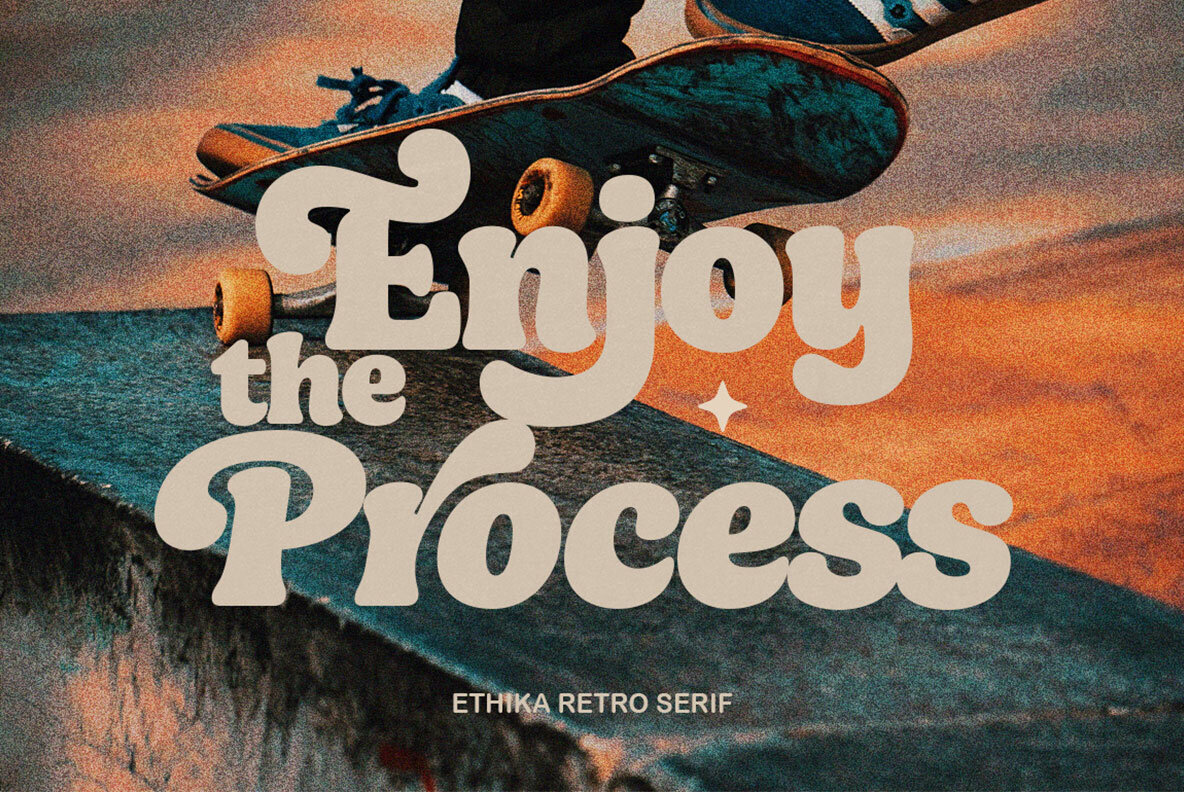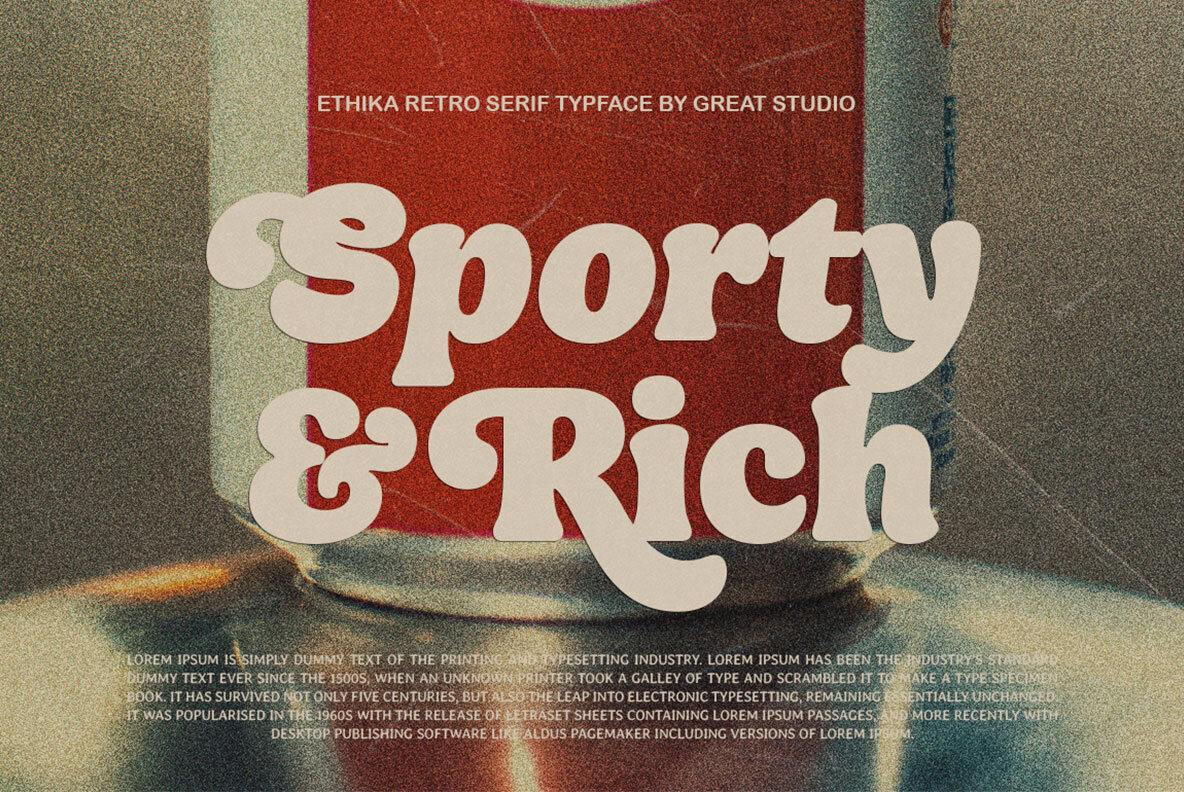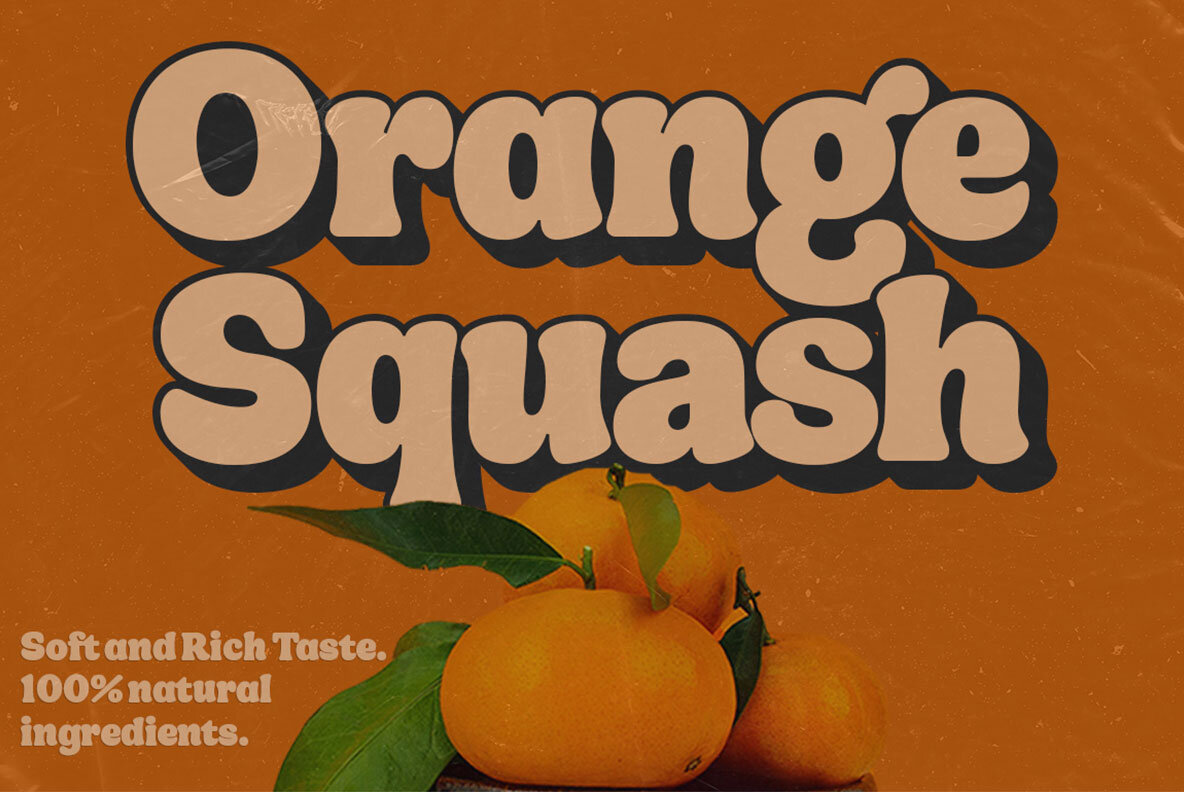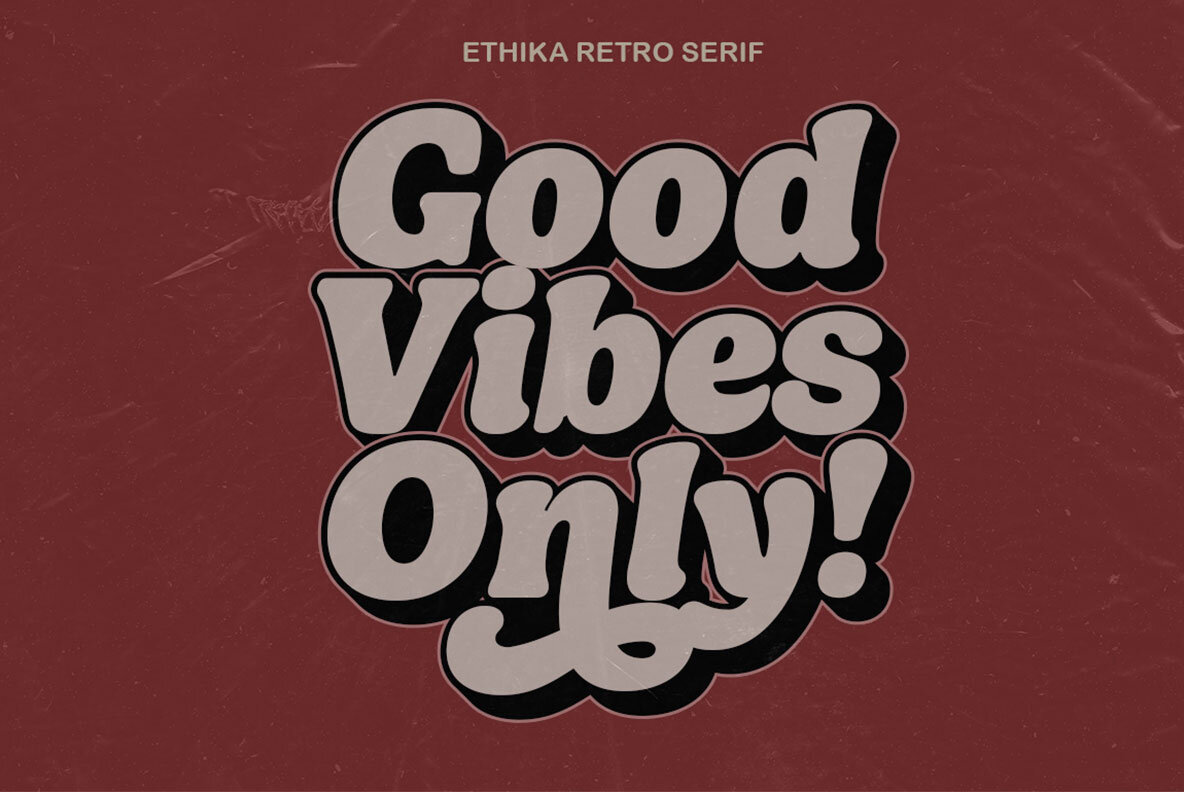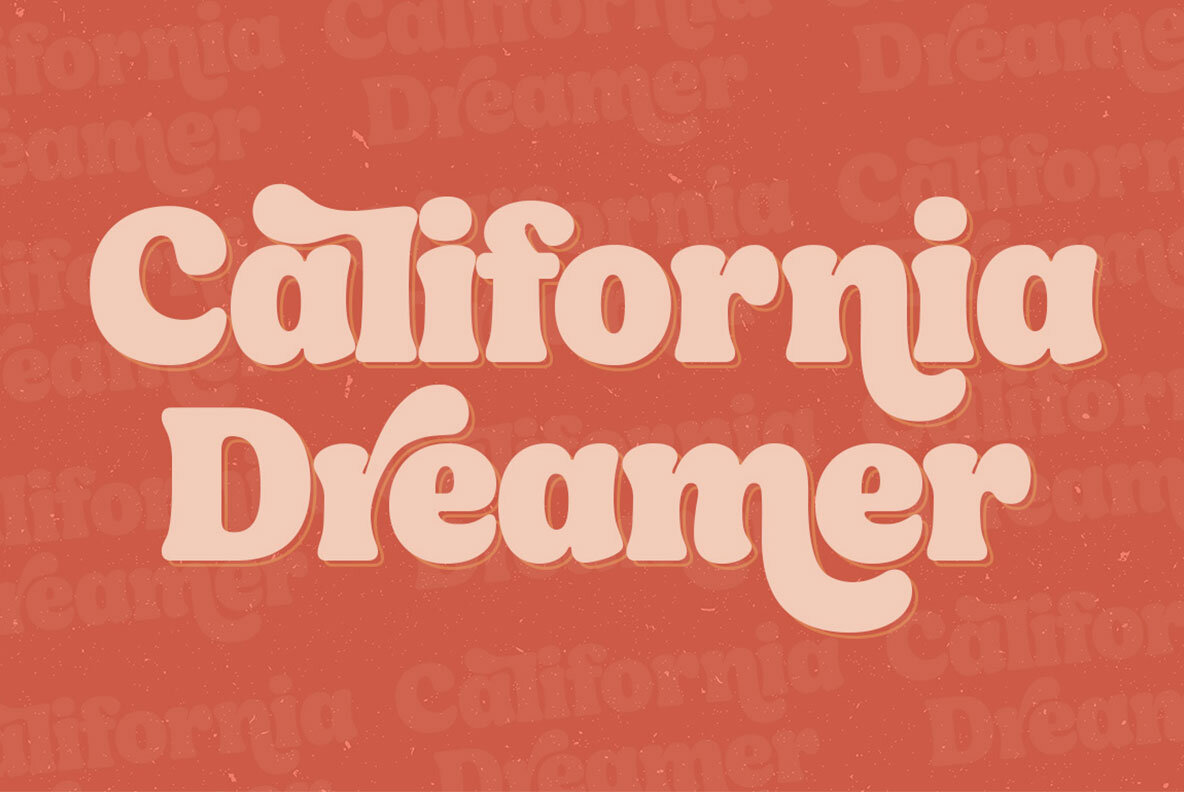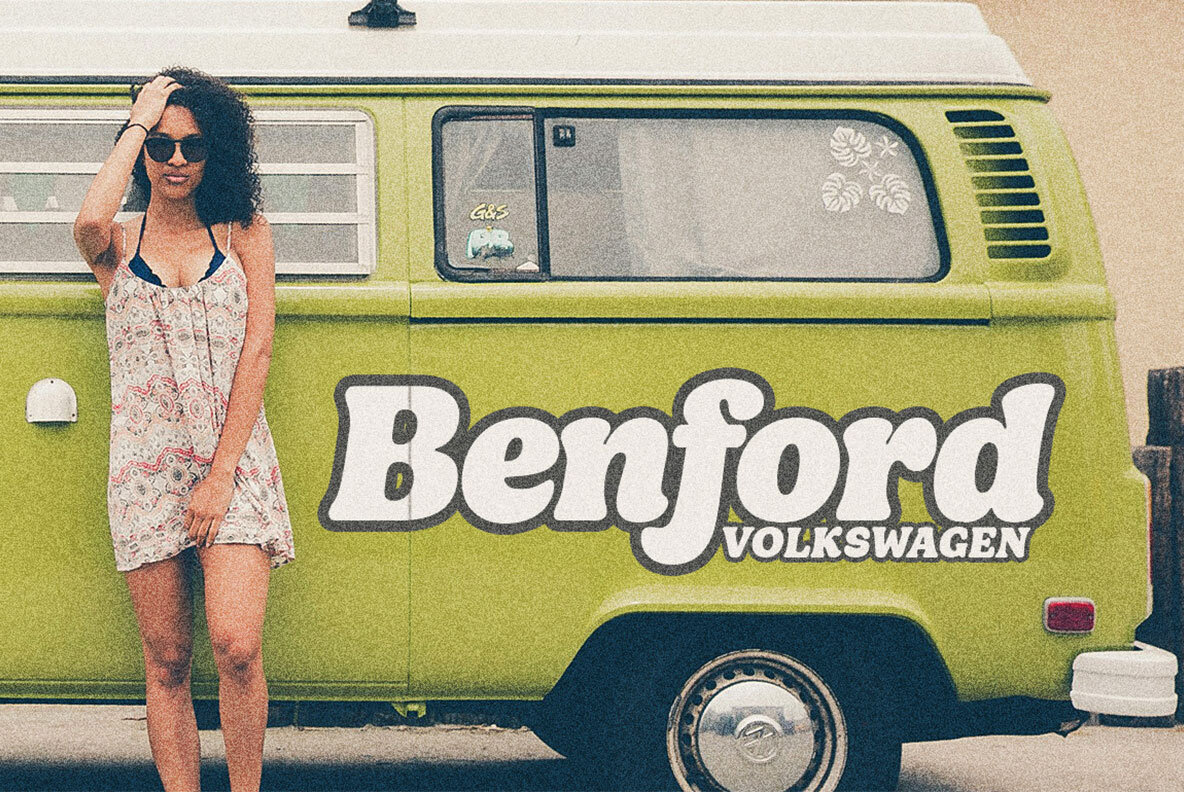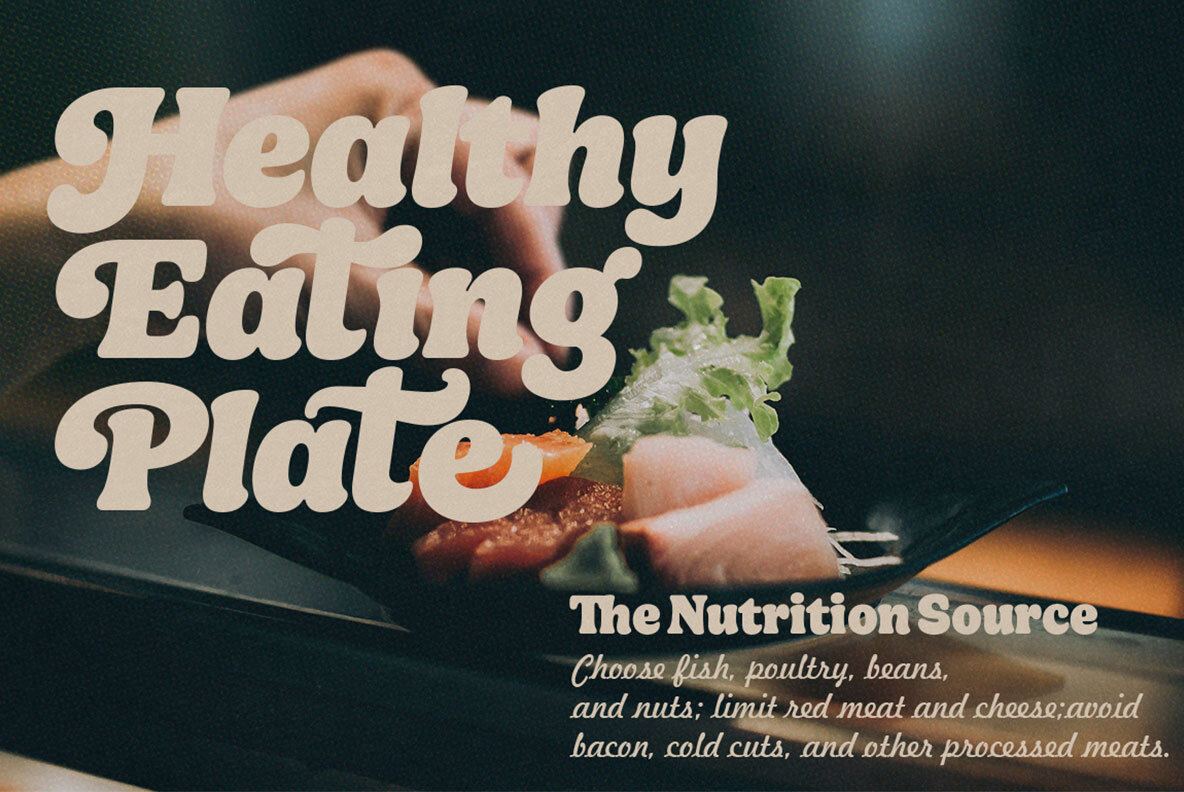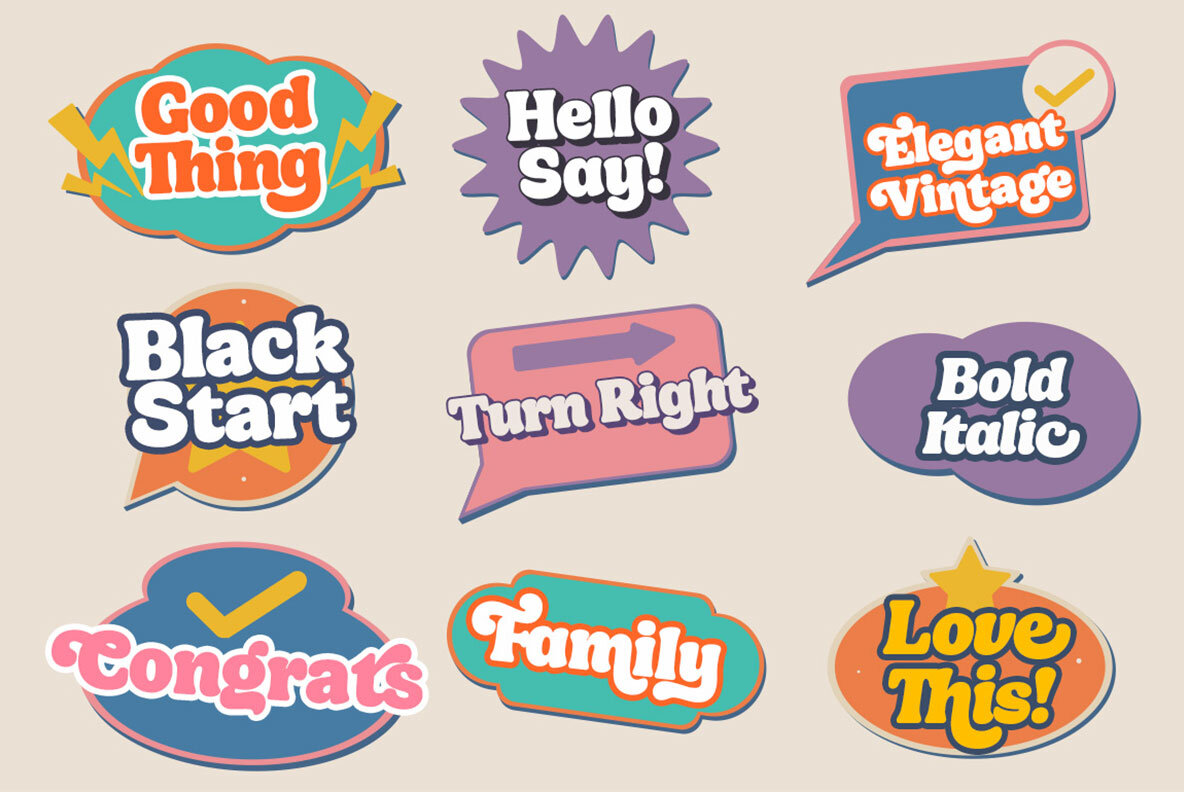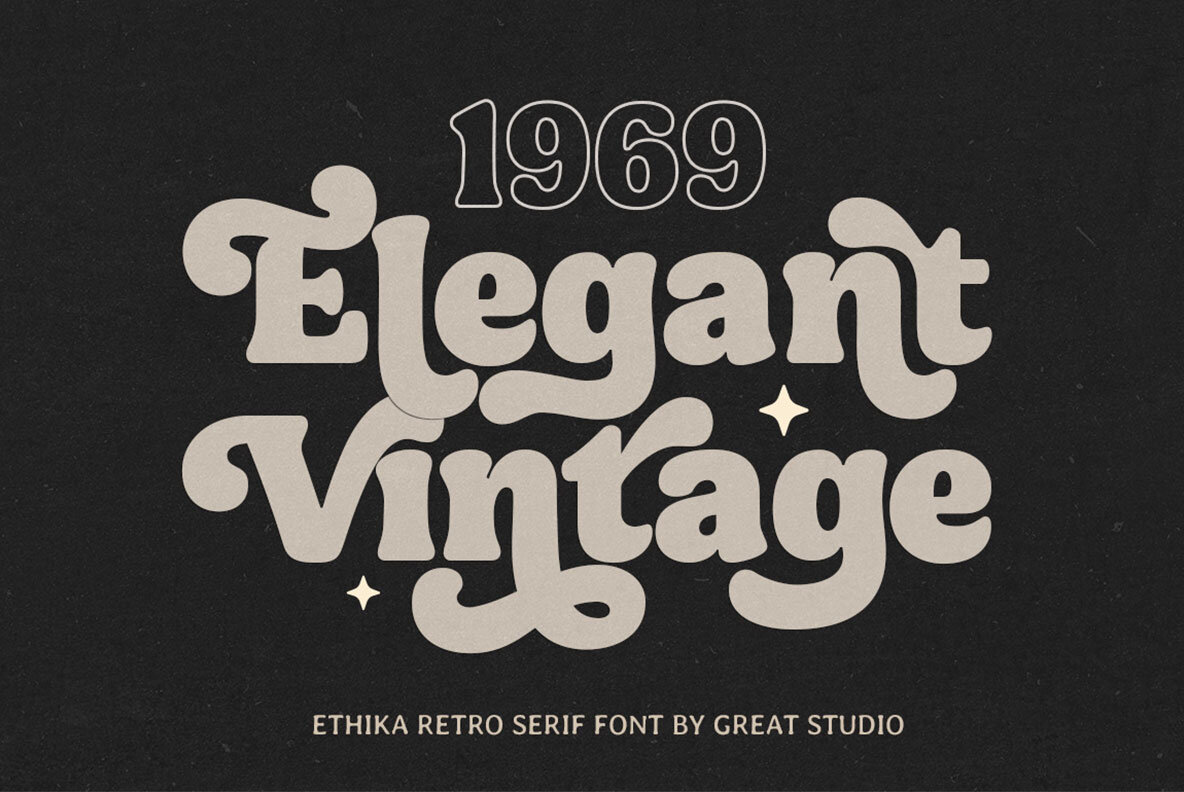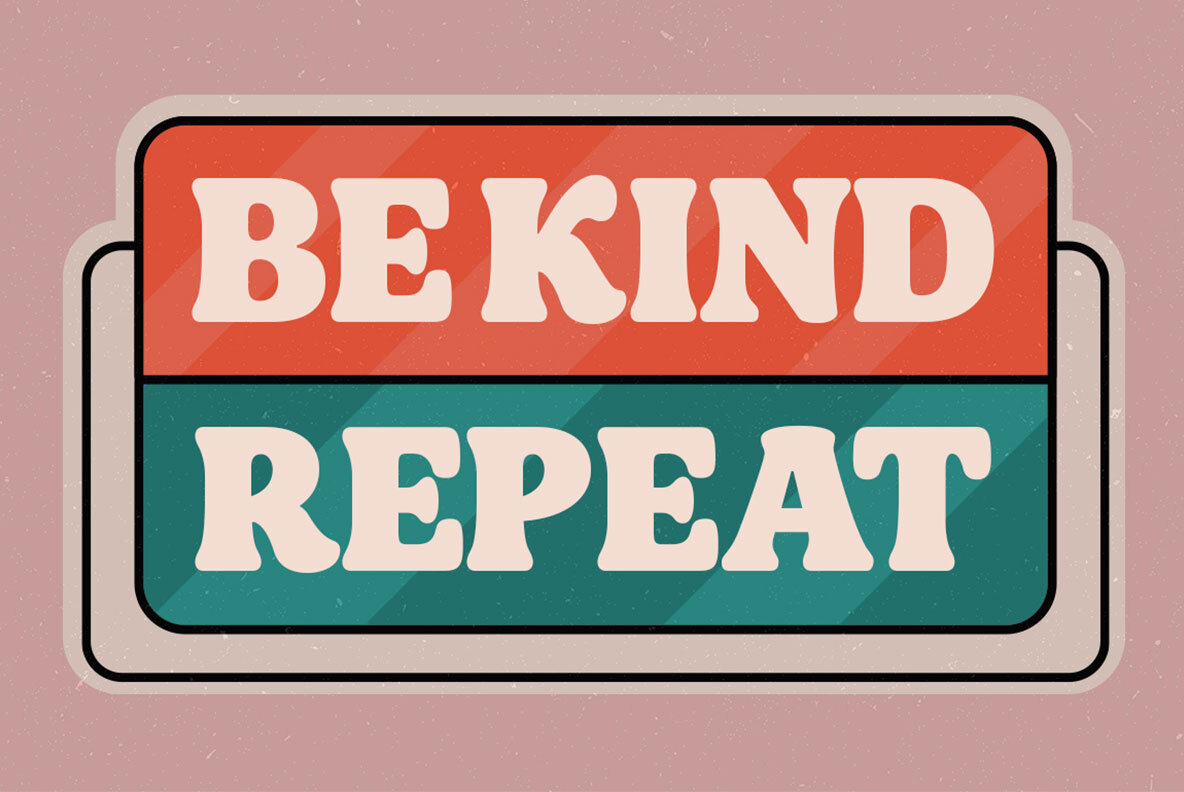
Ethika Font
Ethika is a striking retro serif font that merges the timeless elegance of classic serif styles with bold, daring flair. Drawing inspiration from the bold typography of the 1960s and 1970s, this font offers a distinctive vintage appeal with a modern relevance. Each letter is precisely crafted, balancing elegance with visual impact, perfect for designs needing a touch of nostalgia and personality. Use Ethika to enhance titles, logos, branding projects, packaging, magazine headings, posters, and advertisements, where its prominent thickness ensures readability and captures attention with a classic, timeless vibe.
Available in Regular, Italic, and Extrude versions, Ethika provides versatility for dynamic typographic designs. It supports over 200 languages and offers a range of Opentype features, including ligatures and alternates, allowing for creative flexibility. Fully accessible across various platforms like Adobe Illustrator, Adobe Photoshop, Adobe InDesign, Canva, and Microsoft Word, Ethika is PUA encoded, ensuring its characters are easily accessible without additional software. This comprehensive font family adapts effortlessly to a variety of creative projects, maintaining its vintage charm across modern applications.